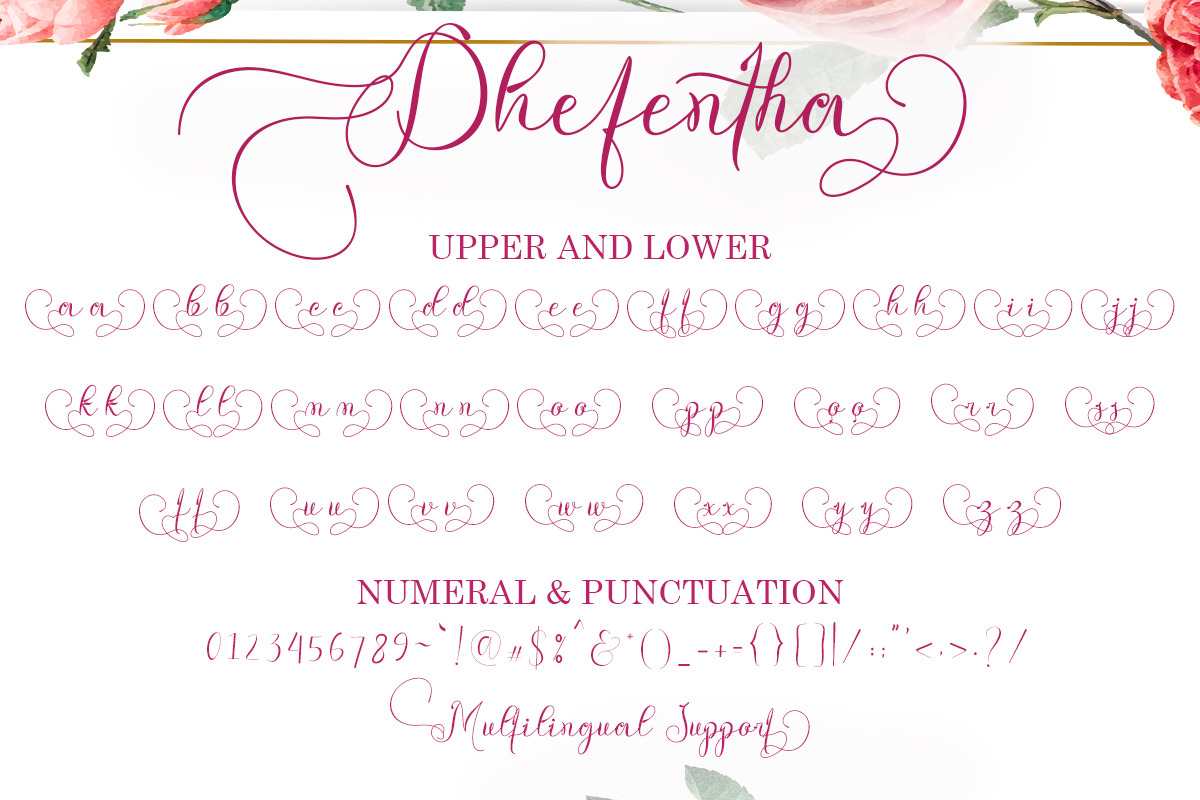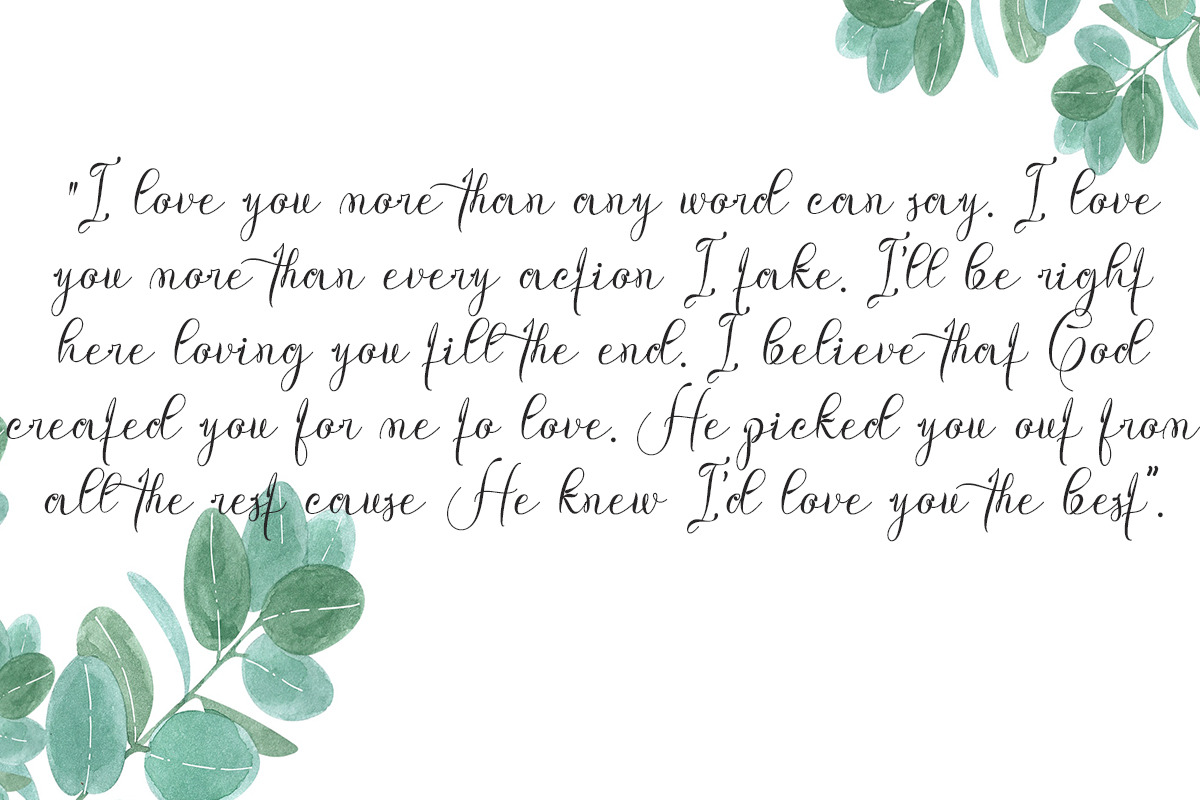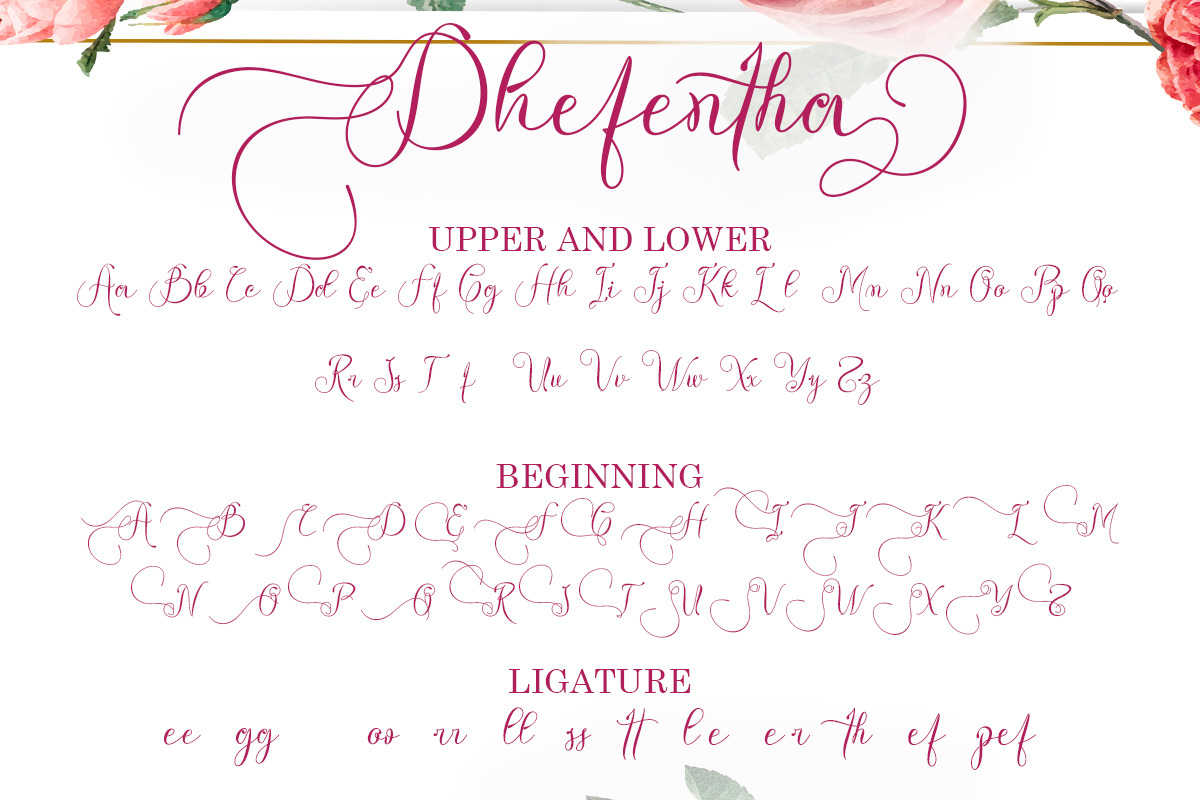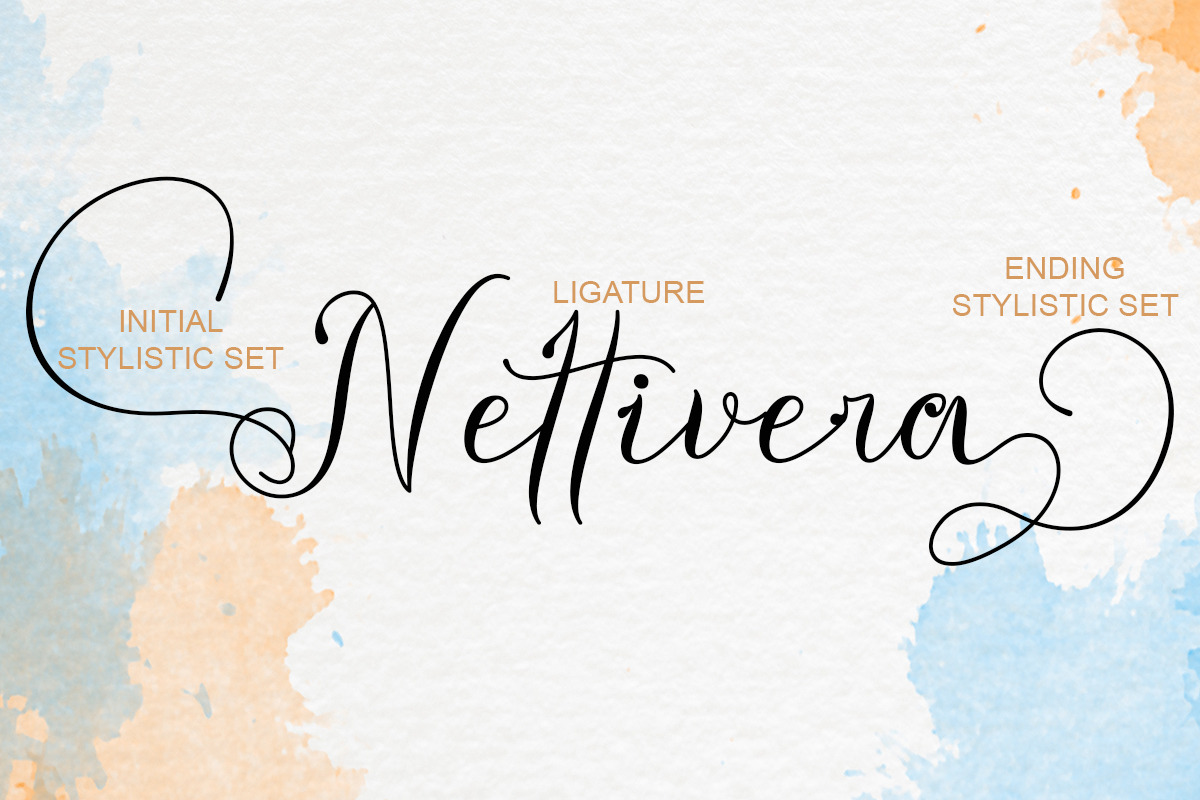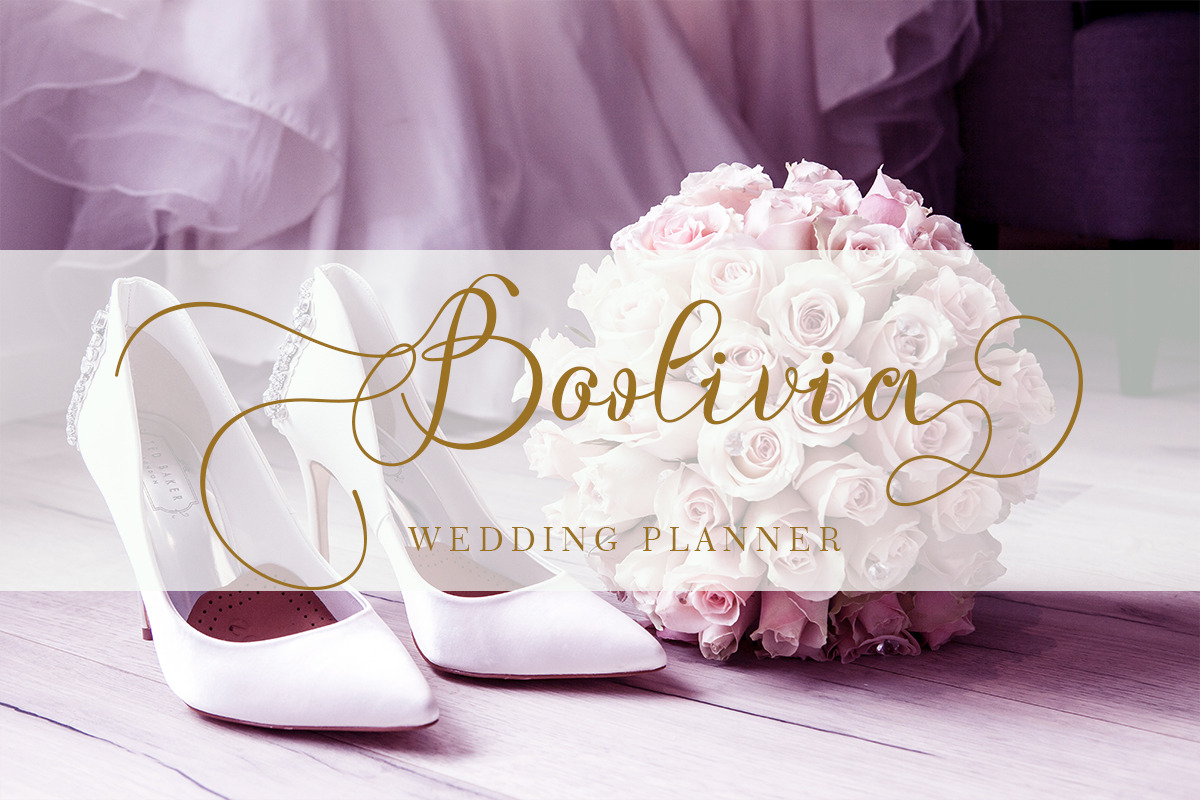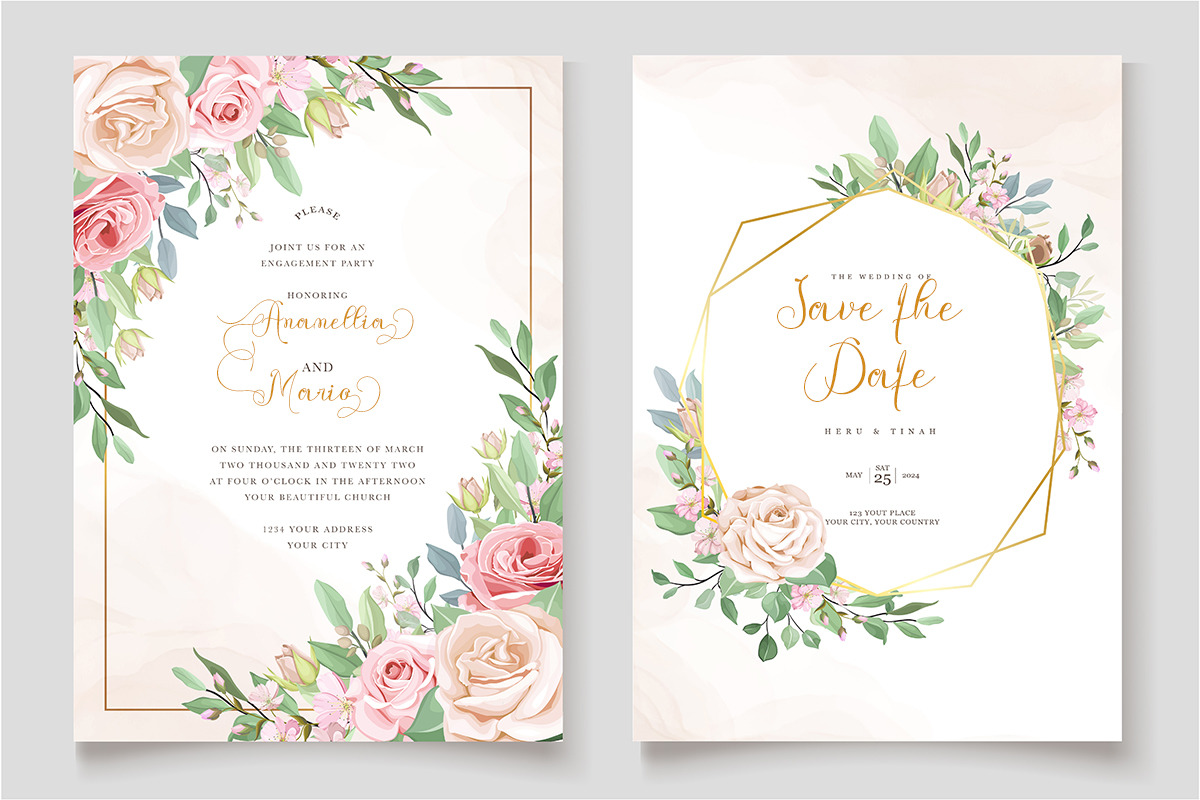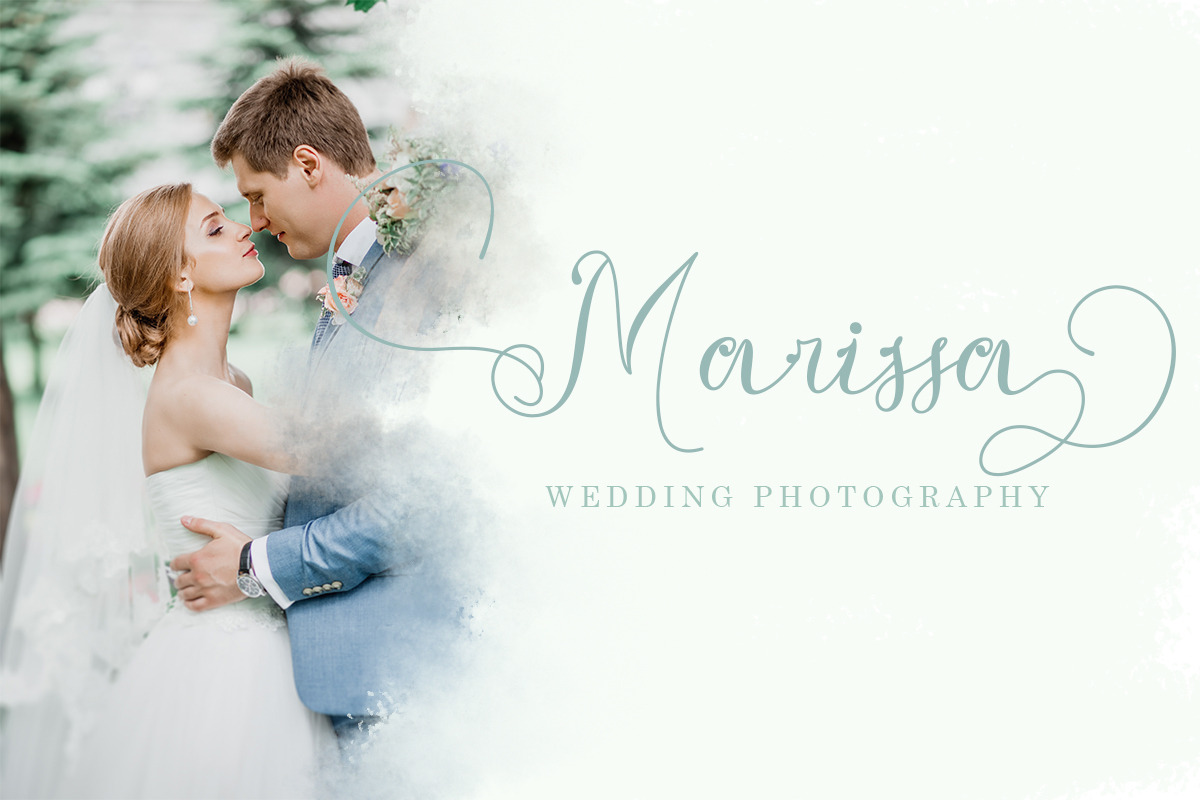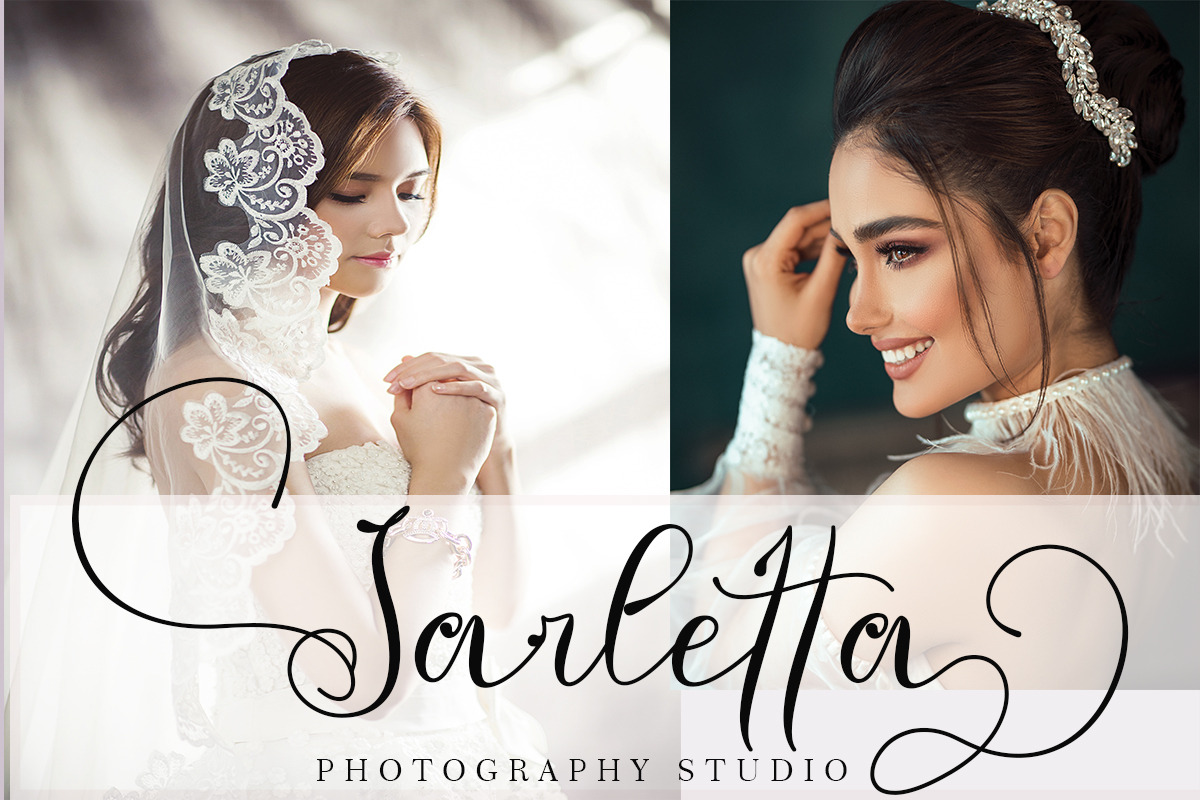
Dhefentha
Dhefentha is a high quality font that is made with a subtle touch, resulting in a very beautiful, elegant font suitable for all types of your work. This font is perfect for all wedding needs (wedding invitations, wedding photography, decorations, and other wedding designs. It is perfect for promoting your business (hotel, villa, vacation spots, products, services or other promotions. Also suitable for promo updates, logos, branding, posters, or for status updates on social media, valentine, christmas, winter and other.